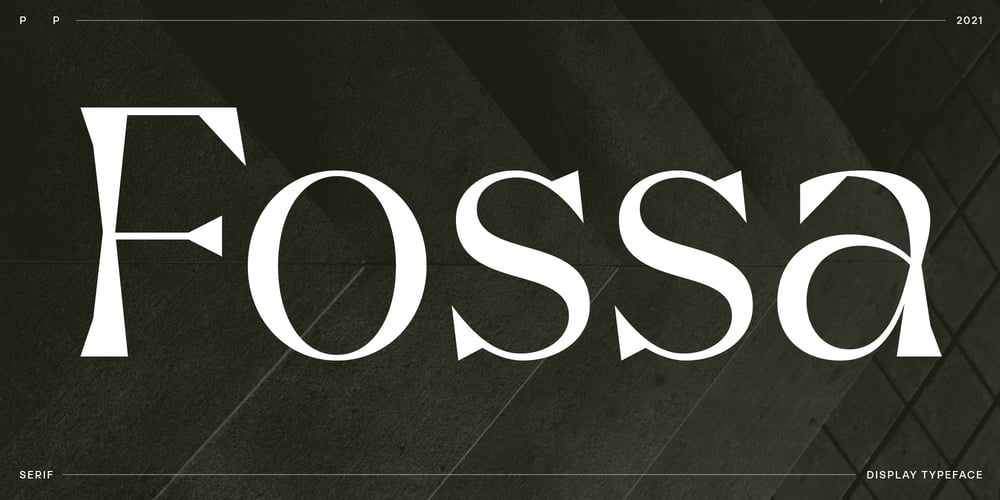
Fossa Font Family was designed by Josh Middleditch and published by PushPrinciple. Fossa contains 5 styles and family package options. Fossa is an unconventional serif designed primarily as a display typeface. Its splayed, pinched vertical strokes and pointy wedge serifs give it a distinct flavour. The style for Fossa was initially conceived while studying the forms of Optima – in particular, the subtle taper towards the midpoint of the stems and strokes. Taking the idea of vertical strokes with a nipped waist to the extreme, Fossa was born. The sharper style created by these vertical strokes is echoed within the serifs, resulting in a contemporary wedge serif with an elegant but dramatic character. Available in five weights: ExtraLight, Light, Regular, Medium and Bold. OpenType features including ligatures and fractions.